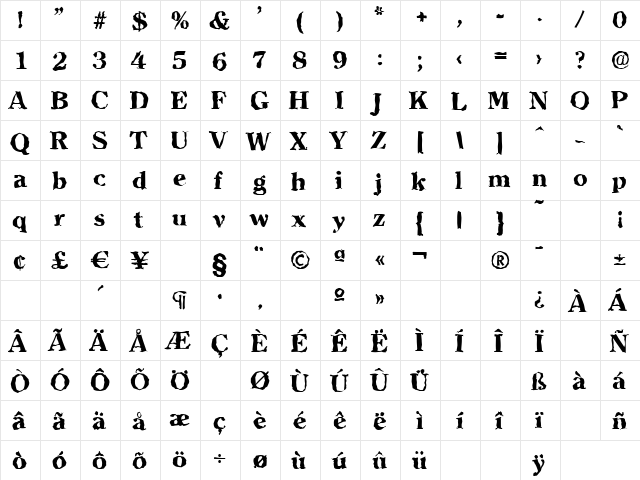
ChristianBeckerRandom-ExtraBol d-Regular Font Preview
ChristianBeckerRandom-ExtraBol d-Regular
Design Context for ChristianBeckerRandom-ExtraBol Typeface
ChristianBeckerRandom-ExtraBol takes a measured approach to typography — its balanced proportions and neutral character make it a reliable workhorse for both digital and print work.